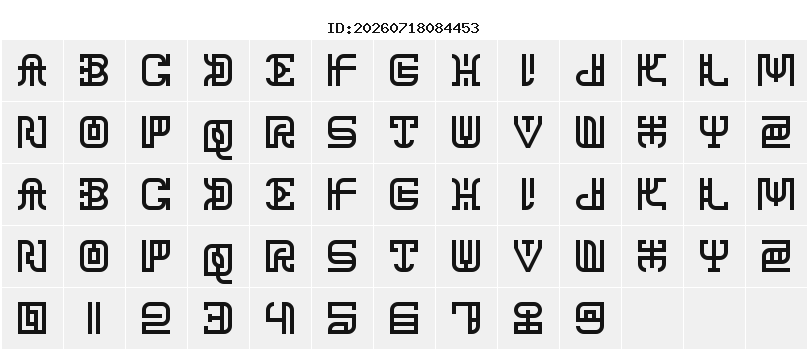
Chana Remedy Preview
• Font Name: Chana Remedy
• Full Font Name: Chana Remedy Regular
• Designer: Adien Gunarta
• Description: “Chana Remedy” was built with FontStruct
About Chana Remedy.ttf
Chana Remedy.ttf is a modern, elegant sans-serif font designed for ultimate readability and visual harmony. Perfect for branding, headlines, web design, and print materials.